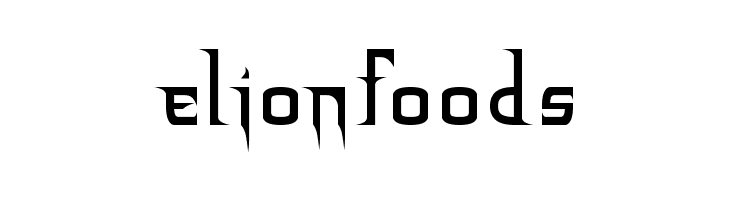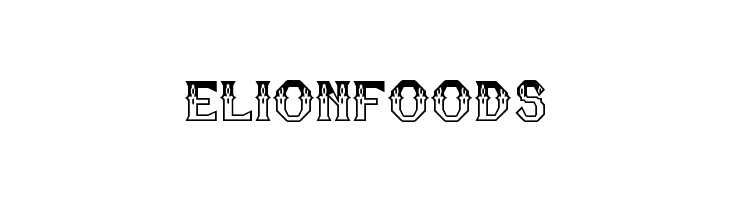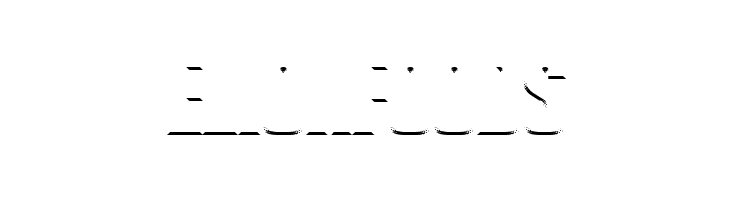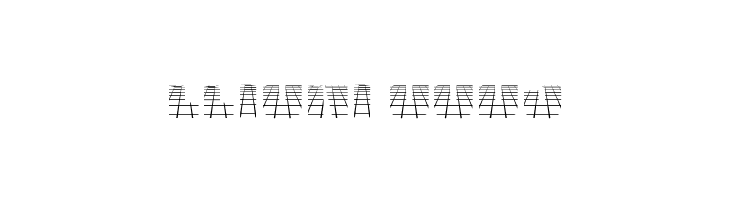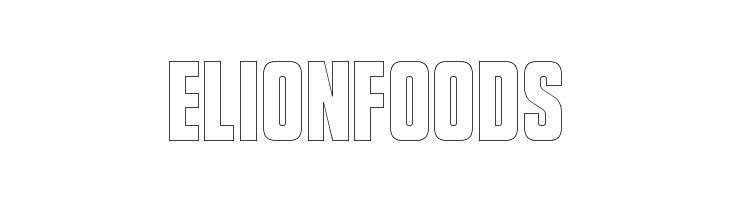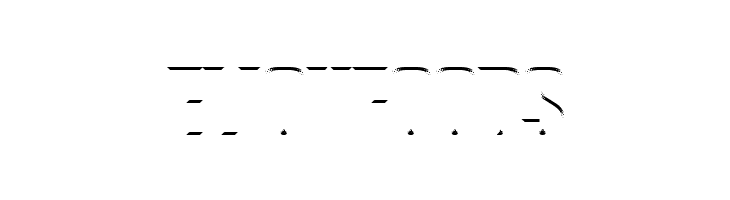
A bold, gothic-inspired font with sharp, angular edges and pointed serifs.
A classic serif font with elegant italics and moderate stroke contrast.
A modern serif font with elegant, refined letterforms and versatile special characters.
Elegant italic font with moderate contrast and classic style.
A modern, elegant italic font with a clean and dynamic style.
A decorative font with intricate, ornamental designs on each character.
A modern, tech-inspired font with segmented lines and geometric shapes.
A futuristic, grid-patterned font with geometric and structured design.
A bold, geometric outlined font with a modern and impactful style.
A modern, futuristic font with geometric influences and dynamic character design.